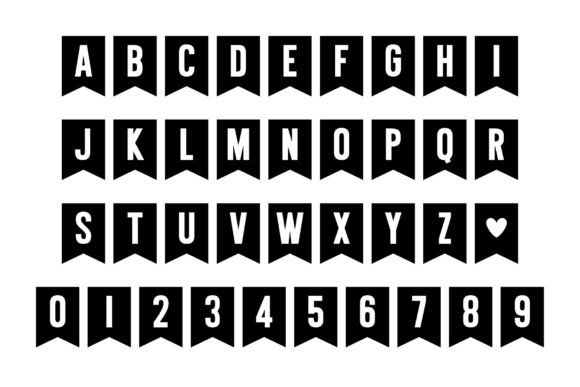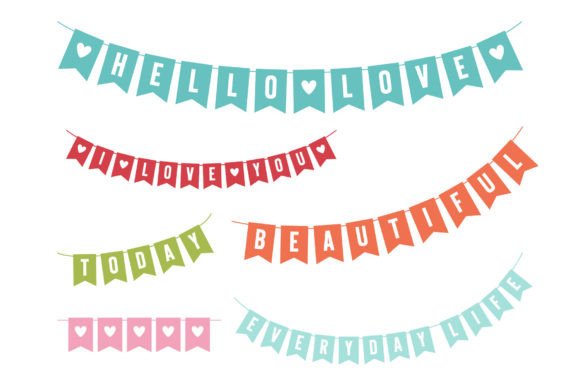
Unleash Your Creativity with the Banner Font
Have you ever been in the middle of a design project, and suddenly, you’re stuck on finding the perfect font? I recall a particularly frustrating moment when a client asked for a custom banner design, and I was determined to make it stand out. After scouring through countless font libraries, I stumbled upon the Banner Font, and it completely transformed my design game. In this article, I’ll share my experience with the Banner Font, its features, and how to make the most of it in various design platforms.
A Personal Review of the Banner Font
- ✨ Effortless Text Shaping: The Banner Font allows you to shape your text along unique vector curves, creating a vibrant banner that stands out.
- ✅ Seamless Integration: Typed messages adopt your individual path, making it easy to create extraordinary designs.
- 💫 Endless Creative Possibilities: With the Banner Font, you can transform ordinary text into stunning visual statements.
While the Banner Font is incredibly versatile, there are a few minor limitations to consider:
- ⚠️ Learning Curve: Mastering the OpenType features and glyphs may take some time, especially for beginners.
- 🤔 Compatibility Issues: Some older design software or browsers might not support the font’s advanced features.
The Designer Inspiration Behind the Banner Font
The Banner Font was inspired by the works of 19th-century sign painters, who created stunning, hand-painted banners for businesses and events. The font’s creator aimed to capture the essence of these classic designs and bring them into the digital age. By combining traditional techniques with modern digital tools, the Banner Font offers a unique and versatile solution for designers.
Q: What is the Banner Font?
A: The Banner Font is a unique, OpenType font designed for creating stunning banners and titles. It allows you to shape your text along custom vector curves, making it perfect for creative projects.
Q: Is the Banner Font suitable for beginners?
A: While the Banner Font offers advanced features, it’s relatively easy to use, even for beginners. With some practice and patience, you can master its OpenType features and glyphs.